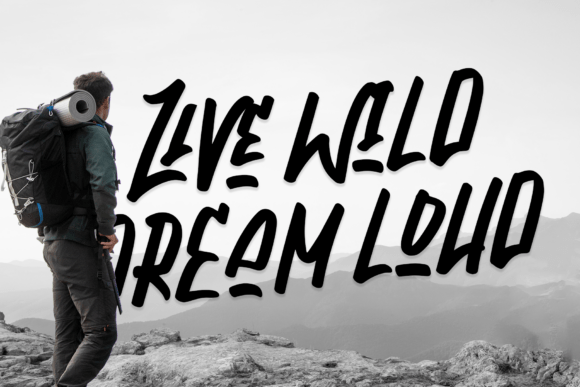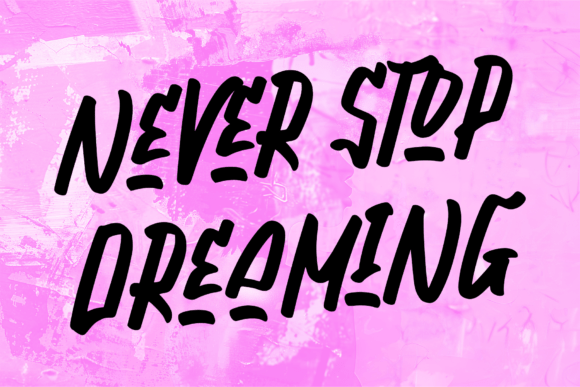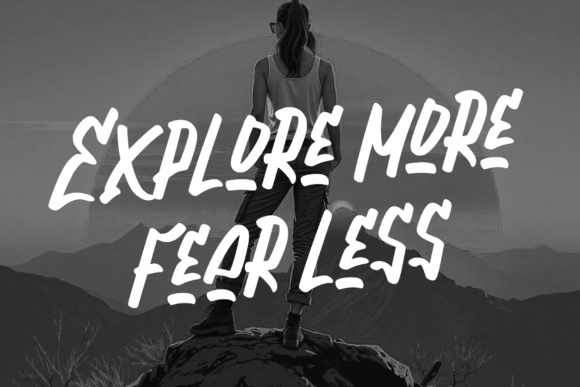
Unlocking the Power of Shock Force Font
Have you ever stared at a blank canvas, searching for the perfect font to bring your creative project to life? The right font can make all the difference, elevating your design from bland to grand. For designers looking to inject some modern urban energy into their work, the Shock Force Font is an unbeatable choice. With its bold, graffiti-inspired script, this font is the ultimate design resource for capturing the essence of city streets and urban culture.
Whether you’re creating a logo, poster, or branding campaign, the Shock Force Font is a high-quality addition to any design arsenal. Its edgy, dynamic strokes and street-style appeal make it perfect for designs that demand a fresh, contemporary look. And with free download options available, you can get started on your next creative project without breaking the bank. With the Shock Force Font, you’ll be able to create striking, impactful visuals with a rebellious spirit – and a transparent background that lets your design shine.
Key Features of Shock Force Font
- High-quality design resource ideal for creative projects, with a modern and edgy feel.
- Unique characteristics include a bold, distressed aesthetic and a wide range of expressive styles.
- Perfect for use in digital design, print materials, and other creative projects where a striking, attention-grabbing font is desired.
Honest Review: Shock Force Font
I recently came across the Shock Force Font, and I must say it’s been a game-changer for my design projects. The high-quality font is perfect for adding a touch of edginess to my creative projects.
- ✨ High-quality design: The Shock Force Font is crisp and clear, making it perfect for any design project.
- ✨ Versatile: The font can be used for a variety of projects, from posters to social media graphics.
Overall, I’m really impressed with the Shock Force Font. While it may have a few limitations, its high-quality design and free download make it an excellent resource for designers. I’d definitely recommend it to anyone looking for a unique and edgy font for their creative project.
How to Use Shock Force Font
The Shock Force Font is a high-quality design resource that can be used for a variety of creative projects. With its unique and striking design, it’s perfect for making a statement in your next project.
Tips for Getting the Most Out of the Shock Force Font
To get the most out of the Shock Force Font, experiment with different sizes, colors, and styles. You can also combine it with other design elements to create a unique look. Don’t be afraid to push the boundaries and try new things!
Common Use Cases for the Shock Force Font
The Shock Force Font is perfect for a variety of creative projects, including logos, posters, flyers, and social media graphics. It’s also great for adding a touch of personality to your resume, business cards, or website.